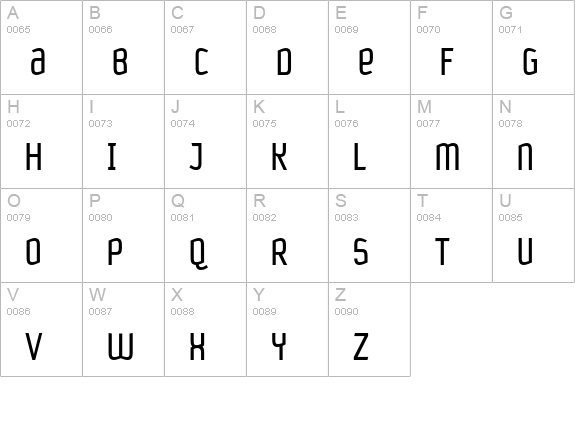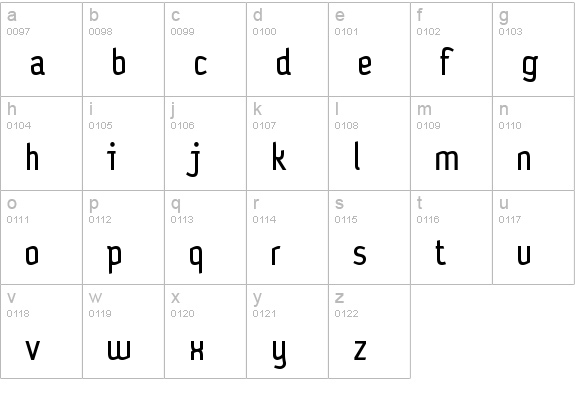
Petrol-Regular is the standard, neutral variant in the Petrol typeface family \xE2\x80\x94 well suited to general body text, paragraphs, and standard typographic work.
Petrol-Regular font is a versatile and stylish typeface that exudes a bold and confident personality. With its clean lines and modern design, this font is perfect for adding a touch of sophistication to any project. Whether you're creating a logo, designing a website, or working on a print publication, Petrol-Regular will make your text stand out. What sets Petrol-Regular font apart is not only its stunning aesthetics but also its accessibility. It is freely available to download at FontsMarket.com, allowing designers, creatives, and enthusiasts alike to easily access this exceptional font. The sleek and streamlined curves of Petrol-Regular font give it a contemporary edge, while its readability ensures that your message is delivered clearly and effectively. The font's versatility allows it to seamlessly adapt to various design styles and contexts, making it a perfect choice for both digital and print applications. Whether you're looking to create eye-catching headlines, captivating paragraphs, or attention-grabbing captions, Petrol-Regular font will elevate your design to new heights. Its timeless appeal and modern sensibility make it suitable for a wide range of projects, from branding and advertising to editorial and packaging. In addition to its striking appearance, Petrol-Regular font also offers a wide range of glyphs and characters, providing you with ample opportunities for creative expression. It supports multiple languages, ensuring that your message can reach a global audience. Make your design projects truly remarkable with Petrol-Regular font. Its bold and contemporary style, combined with its accessibility and versatility, make it a go-to choice for designers seeking to make a lasting impression. Download Petrol-Regular font for free at FontsMarket.com and unlock the power of this exceptional typeface.